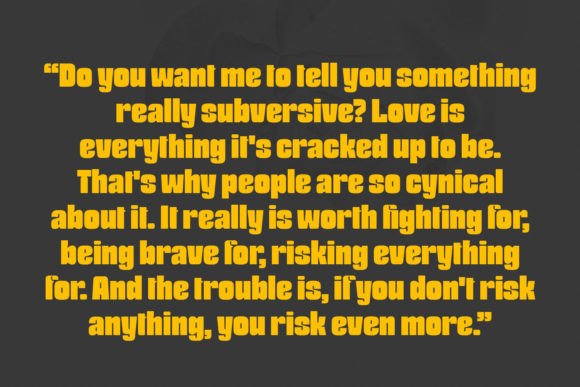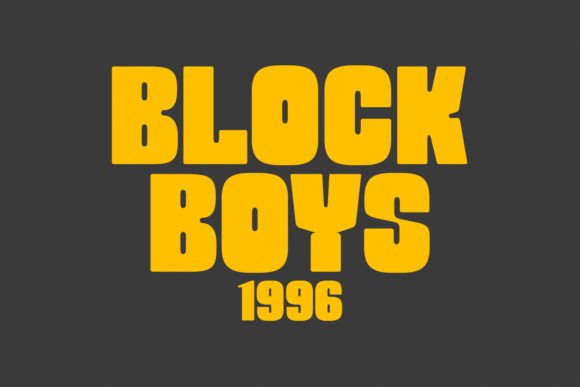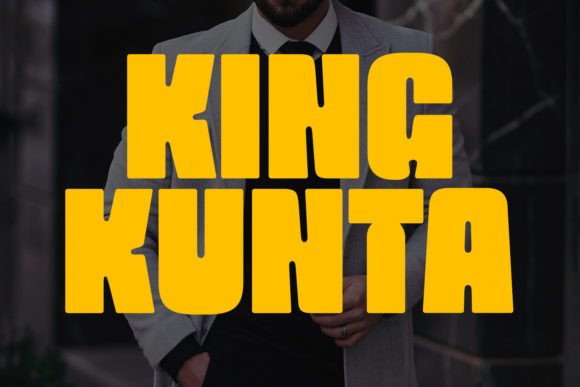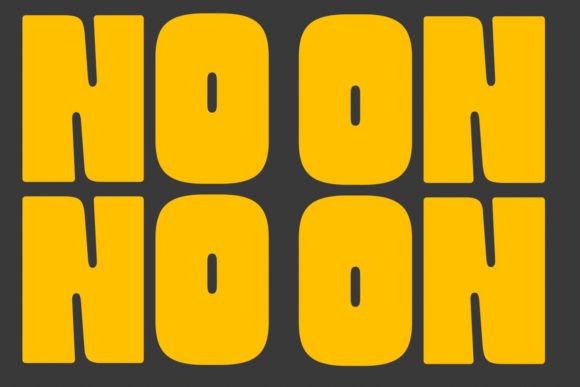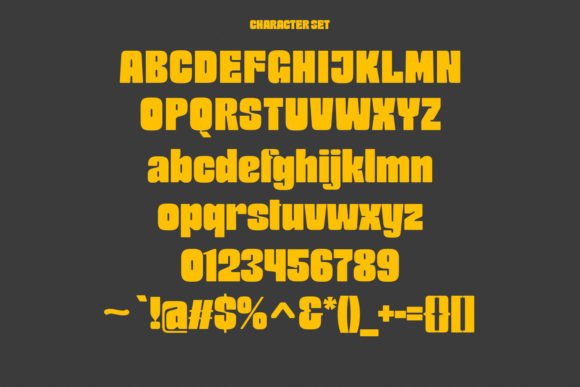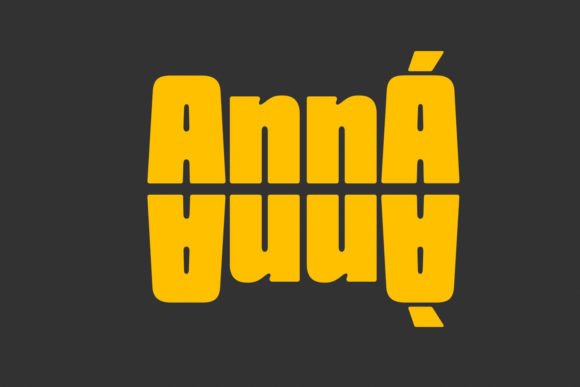
Introduction to Kaplor Font
Kaplor is a cool and modern display font that blends semi-sharp, geometric lines with a sleek and stylish design.
Its futuristic style is perfect for branding, technology, and fashion projects that require a contemporary edge The fontโs clean and bold letterforms make it an excellent choice for headlines, titles, and logos, adding a touch of sophistication and elegance to any design.
Key Features of Kaplor Font